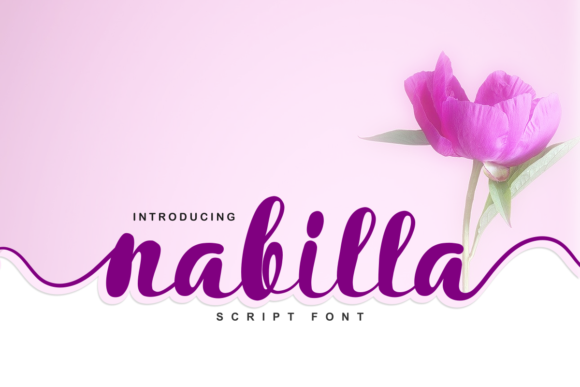
Step into the enchanting world of Nabilla Font, where artistry meets elegance in perfect harmony. This captivating script font, crafted with meticulous attention to detail by the talented Deedeetype, is a symphony of flowing curves and graceful strokes that will elevate your designs to new heights.
Nabilla Font is a visual masterpiece that combines the delicate charm of handwritten letters with the sophistication of a modern typeface. Its well-balanced characters dance across the page, creating a harmonious visual rhythm that draws the eye and captivates the senses. With Nabilla Font, your words will come alive, evoking emotions and leaving a lasting impression on your audience.
Unleash your creativity and let Nabilla Font guide you to design masterpieces that speak volumes. Whether you're crafting logos, branding materials, invitations, social media posts, or any other creative project, Nabilla Font will effortlessly elevate your work, adding a touch of elegance and uniqueness.
Dive into the depths of Nabilla Font's character set and discover a treasure trove of glyphs, swashes, and alternates that will add depth and dimension to your designs. With its PUA encoding, accessing these special characters is a breeze, allowing you to unleash your imagination and create truly captivating compositions.
Nabilla Font is not just a font; it's a creative companion that will inspire you to push the boundaries of your imagination. Its versatility knows no bounds, making it the perfect choice for a wide range of design projects. From delicate wedding invitations to bold marketing campaigns, Nabilla Font will transform your ideas into stunning realities.
Embrace the beauty and elegance of Nabilla Font today and embark on a creative journey that will leave your audience spellbound. Let your designs bloom with grace and sophistication as you experience the magic of this extraordinary font.